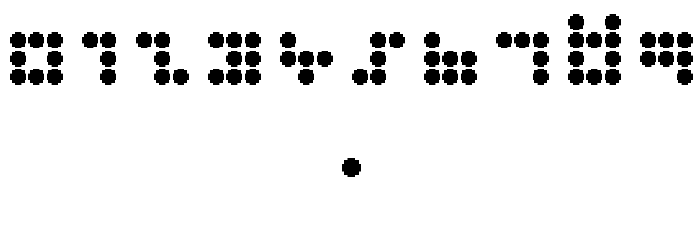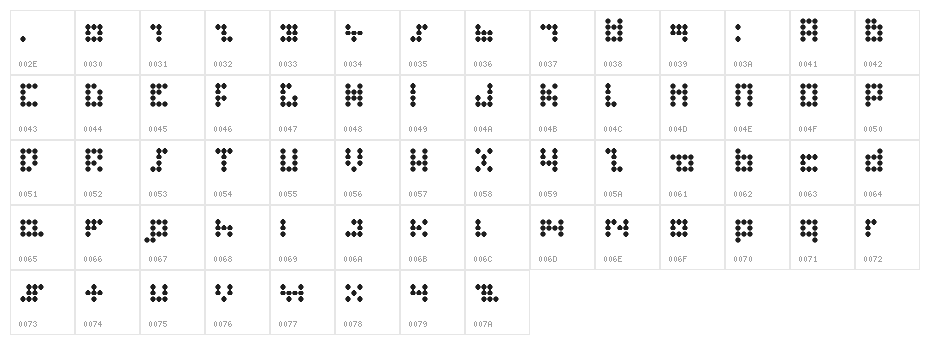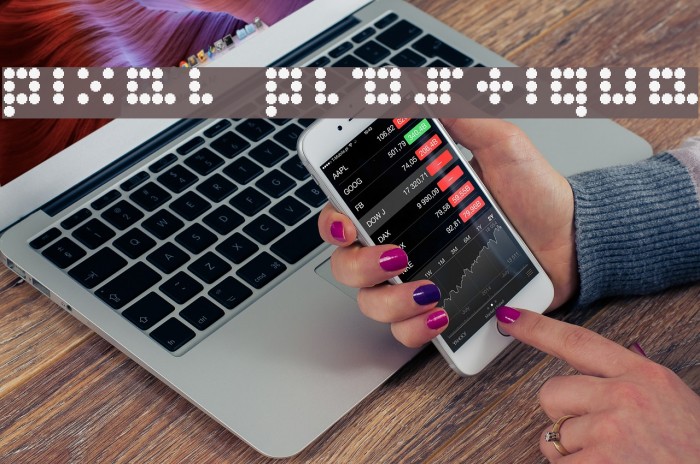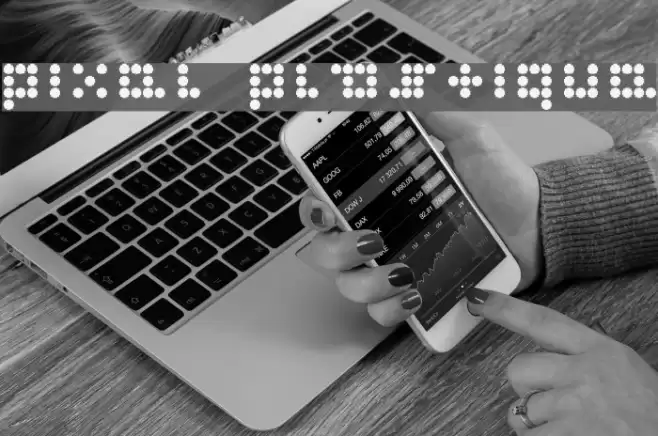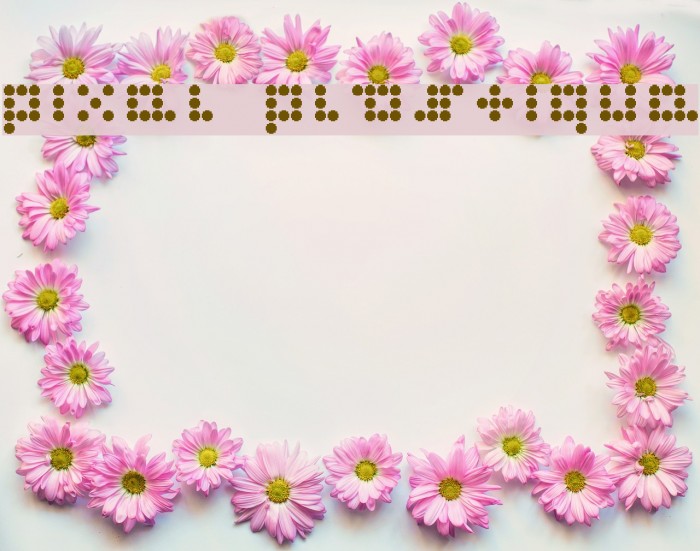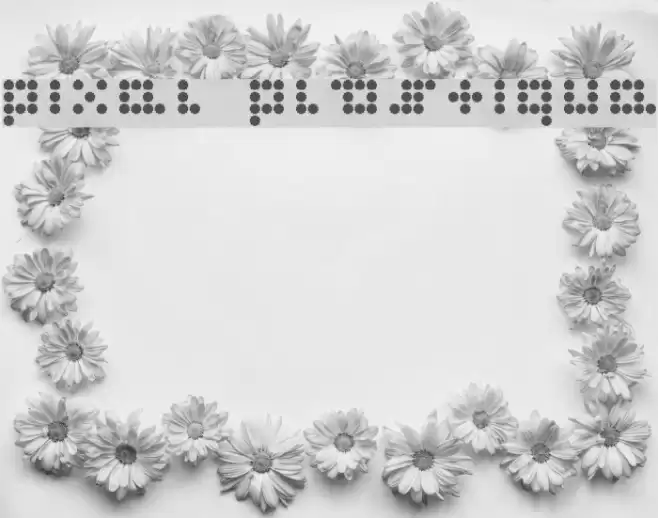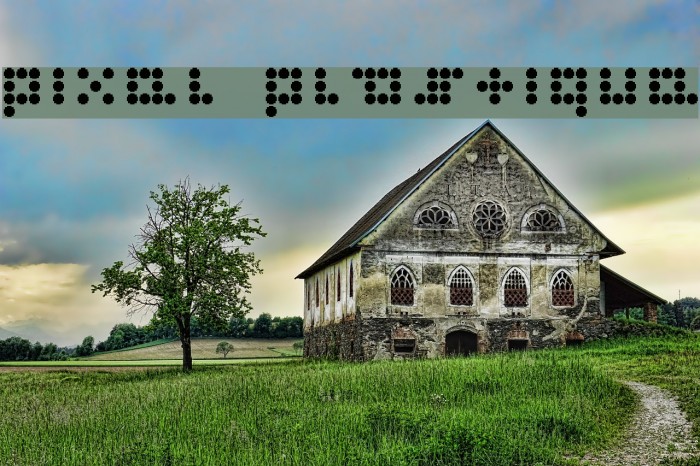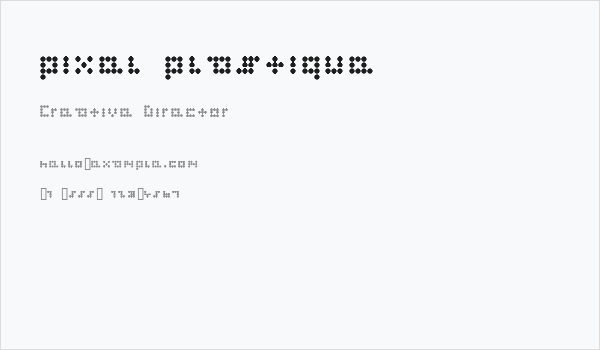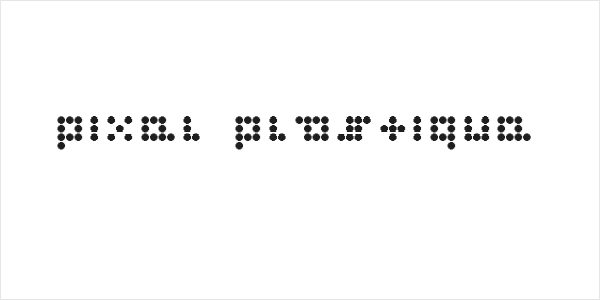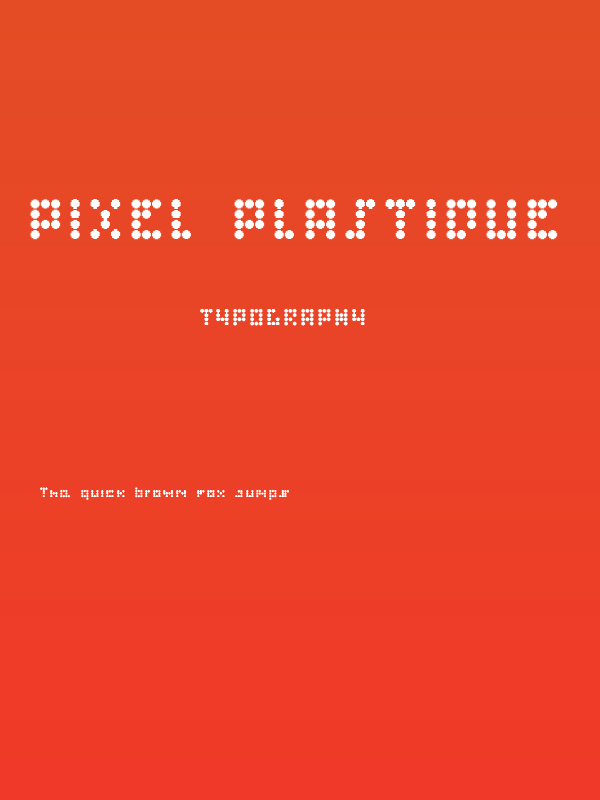
pixel plastique Font
pixel plastique Description
This font features a unique design composed entirely of small, evenly spaced dots forming each character. The geometric arrangement gives it a digital, pixelated appearance reminiscent of early computer displays or LED screens. Each letter and number is clearly defined, maintaining legibility despite the unconventional style. The uniformity of the dots creates a consistent texture across all characters, making it suitable for modern, tech-inspired designs. The font's playful yet structured aesthetic can add a distinctive touch to creative projects.
| Use Case | Logos, Headlines, Digital displays |
| Proposed Projects | Ideal for digital art, tech-themed posters, retro video game graphics, and modern branding projects. |